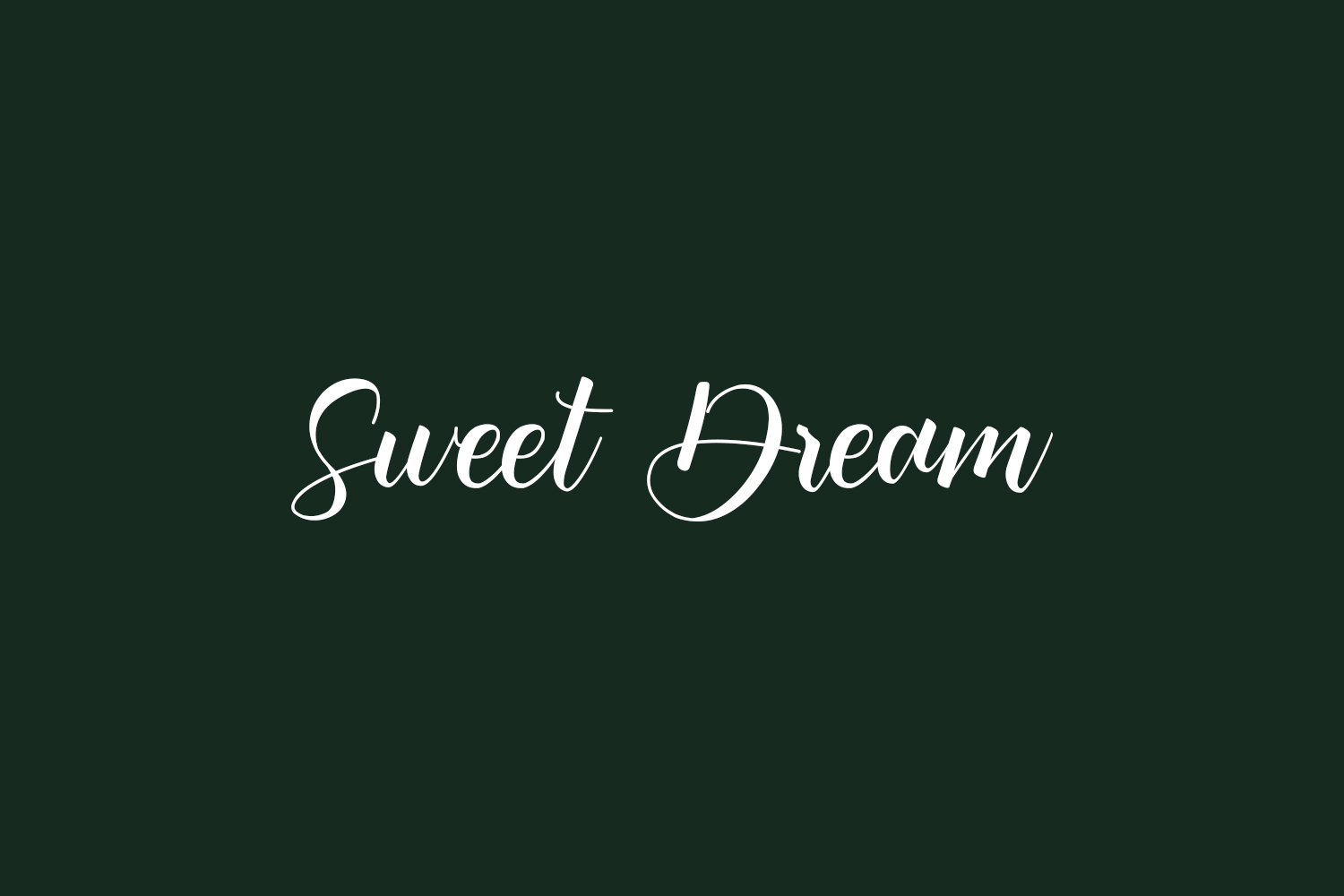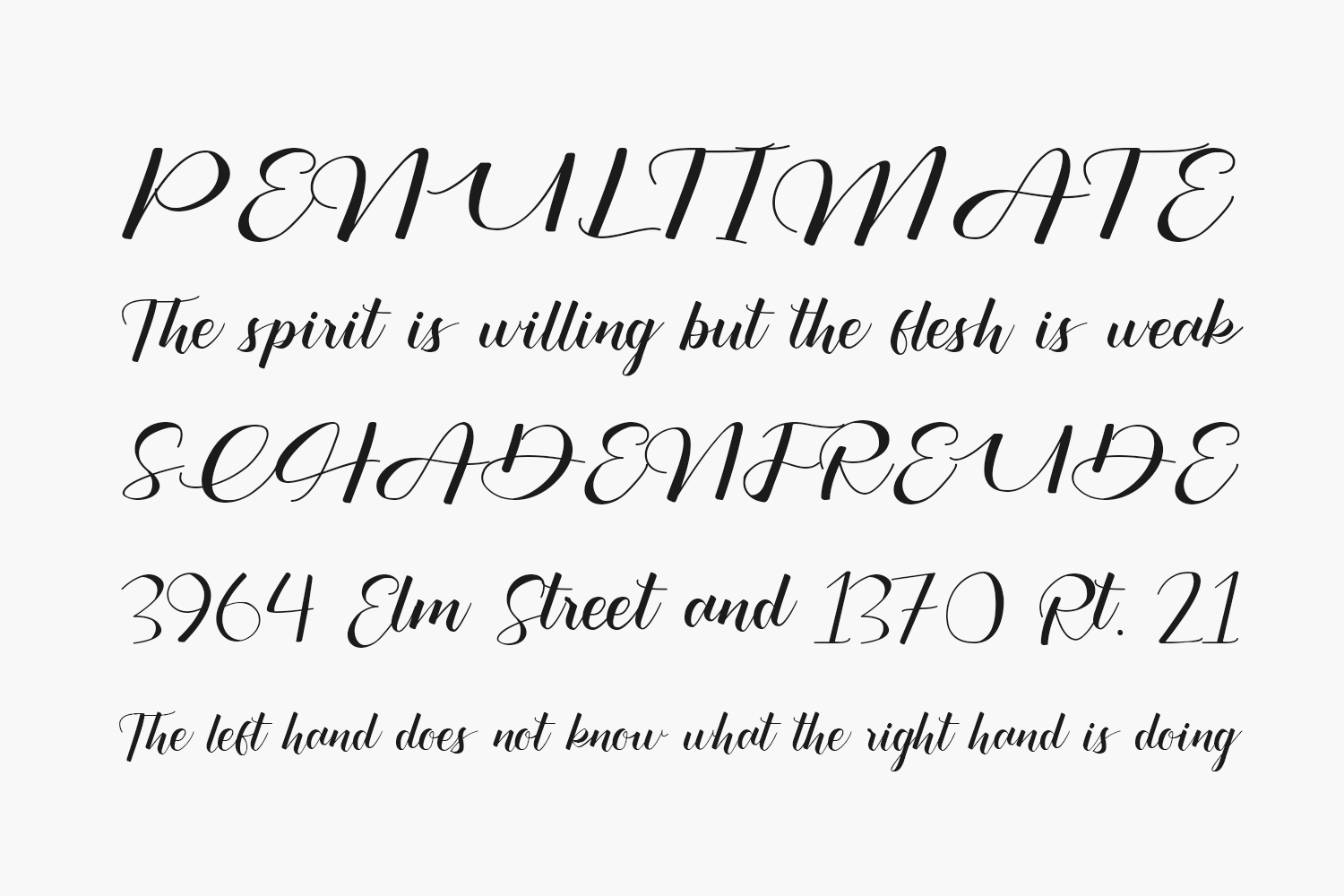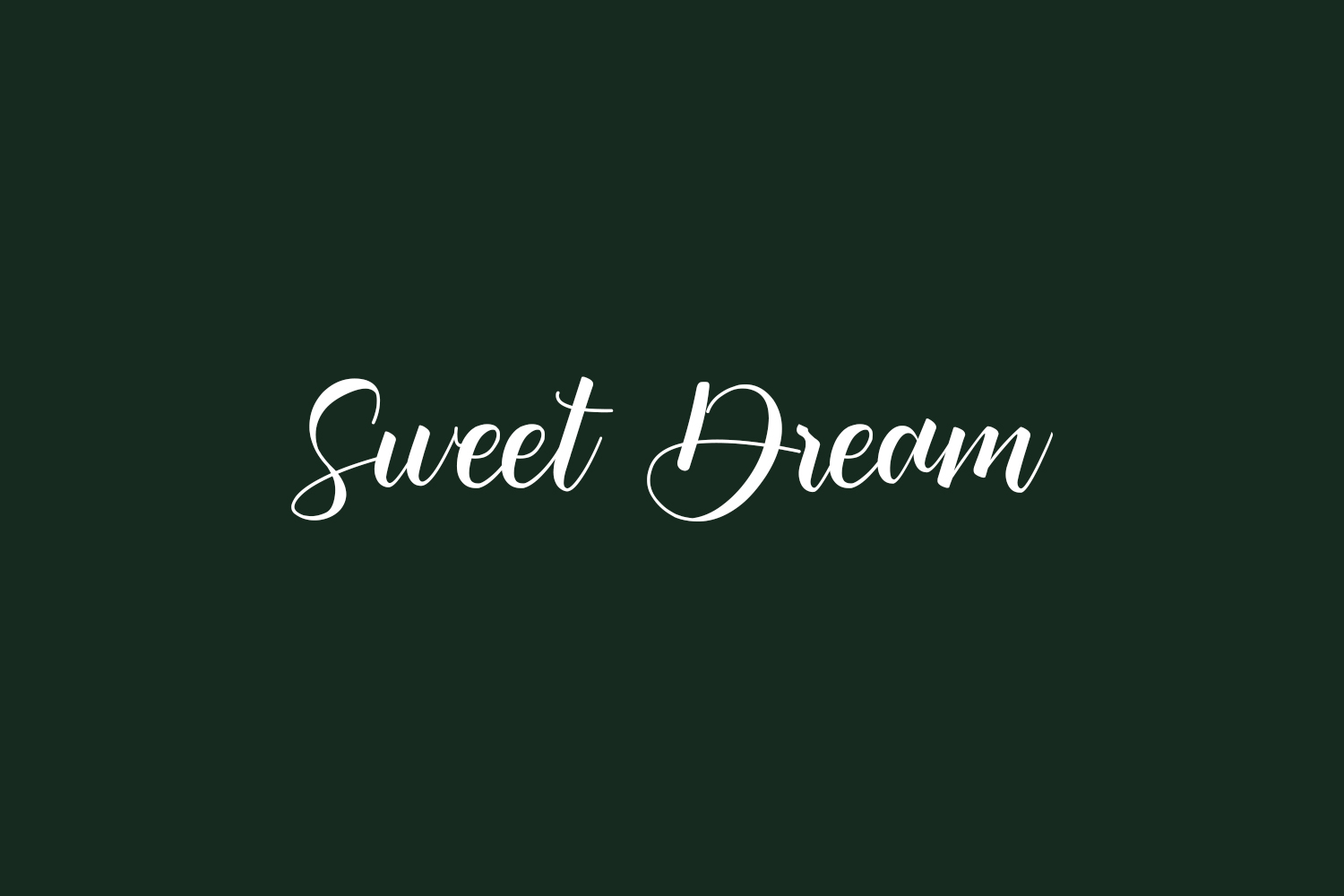
Sweet Dream Free Font updates classic calligraphy with a modern twist. It’s the perfect font for adding a unique flavor to any design. Sweet Dream Free Font was designed by Ahgo Studio and is free for personal use only. Please purchase the full version for commercial use.